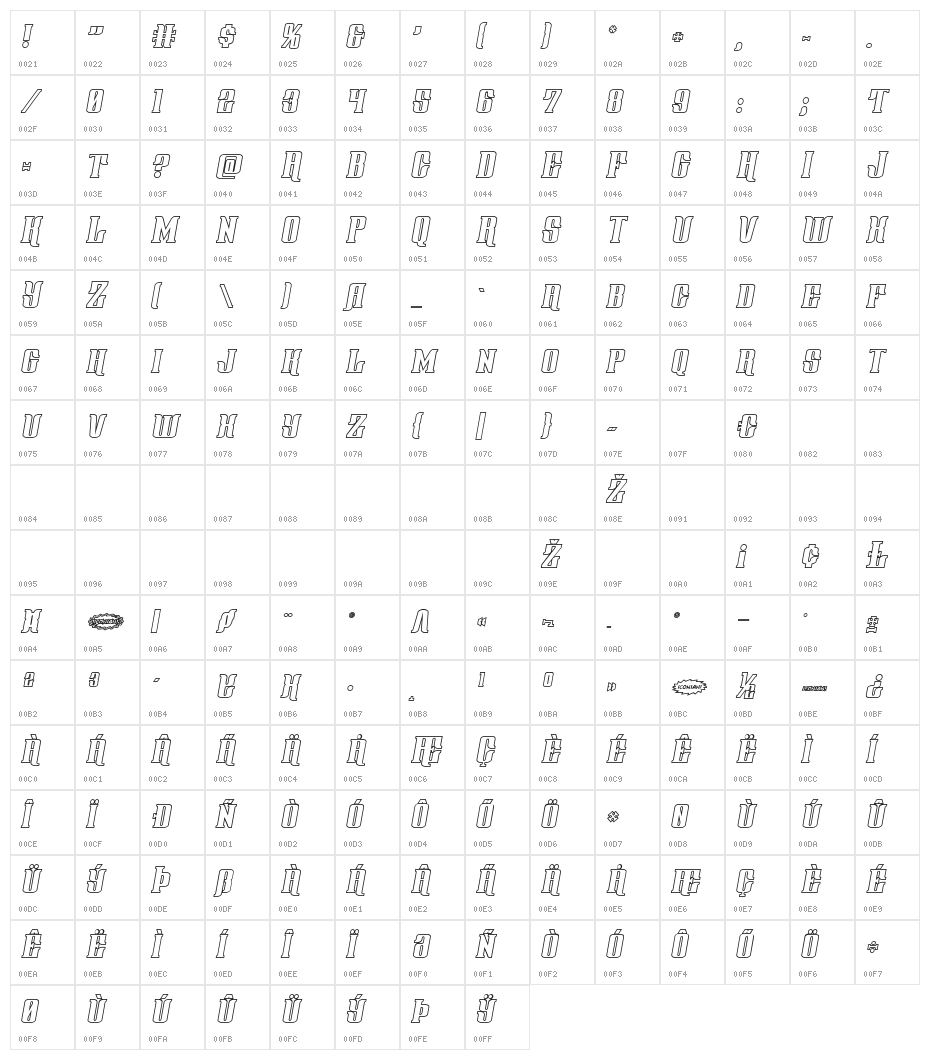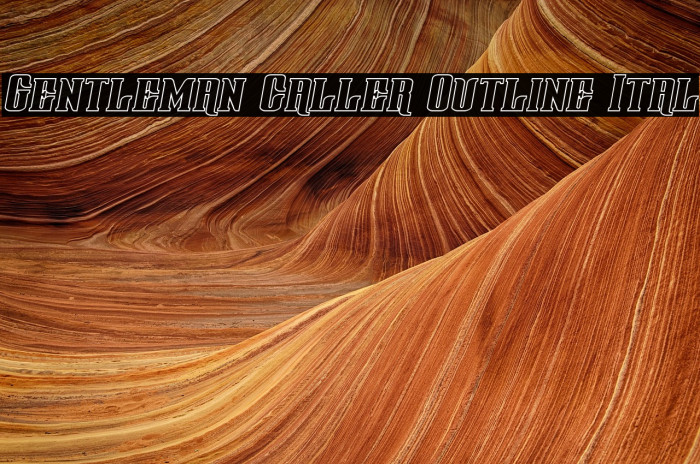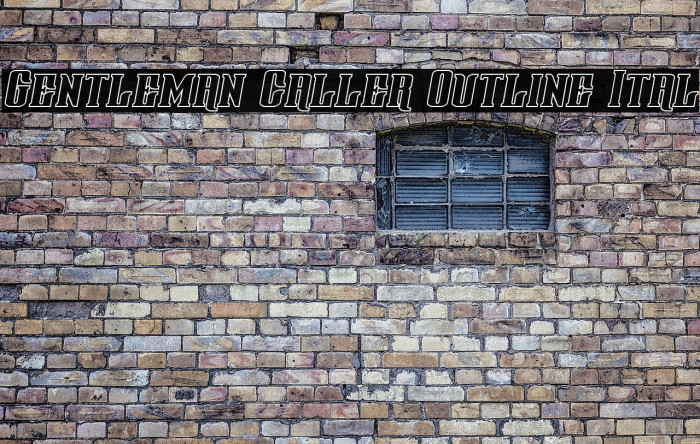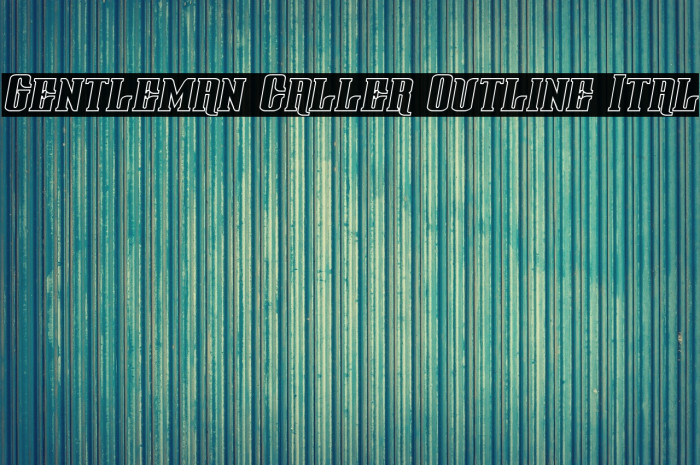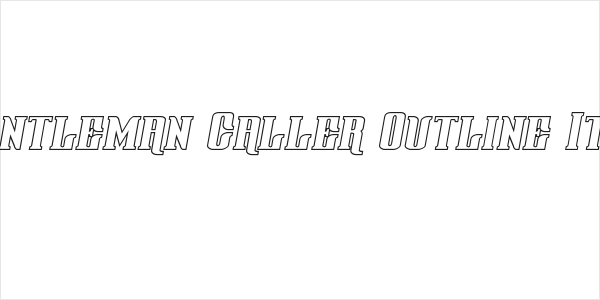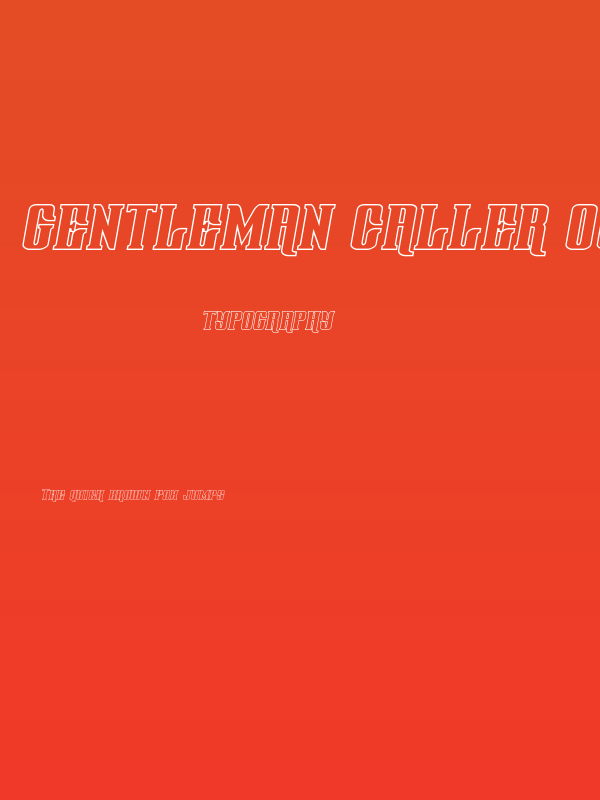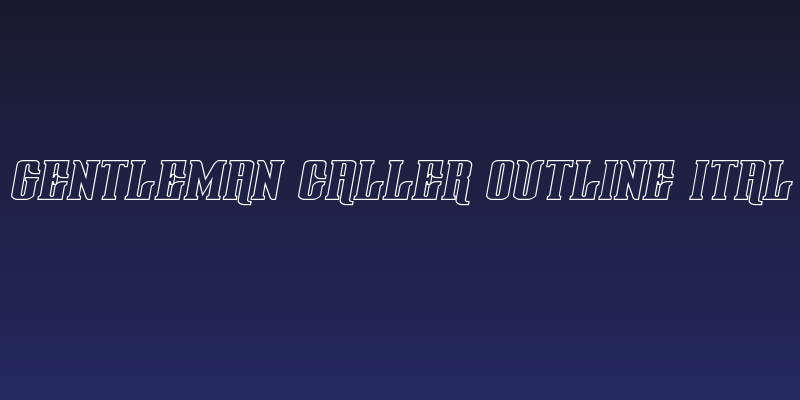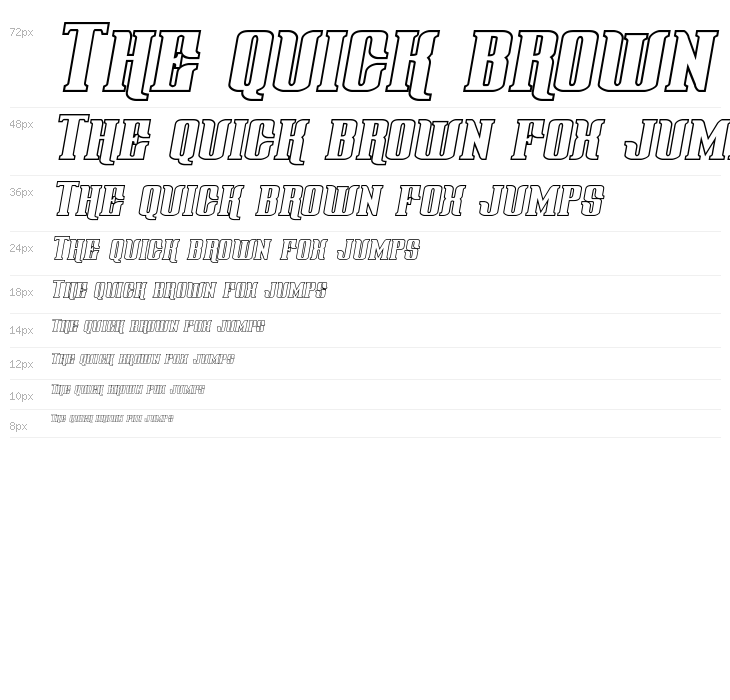
Gentleman Caller Outline Ital Font
Gentleman Caller Outline Ital Description
This font features a bold, outlined style with a distinct slant, giving it an italicized appearance. The characters are uppercase and lowercase letters, numbers, and a variety of special symbols. The design is characterized by its strong, angular lines and a sense of movement, making it stand out as a decorative choice. The outline adds a layer of depth, enhancing its visual impact. The font's style is reminiscent of vintage signage or retro posters, offering a bold statement with its unique flair.
Overall StyleVintage
Proposed ProjectsIdeal for retro-themed posters, vintage signage, branding projects, and eye-catching headlines.